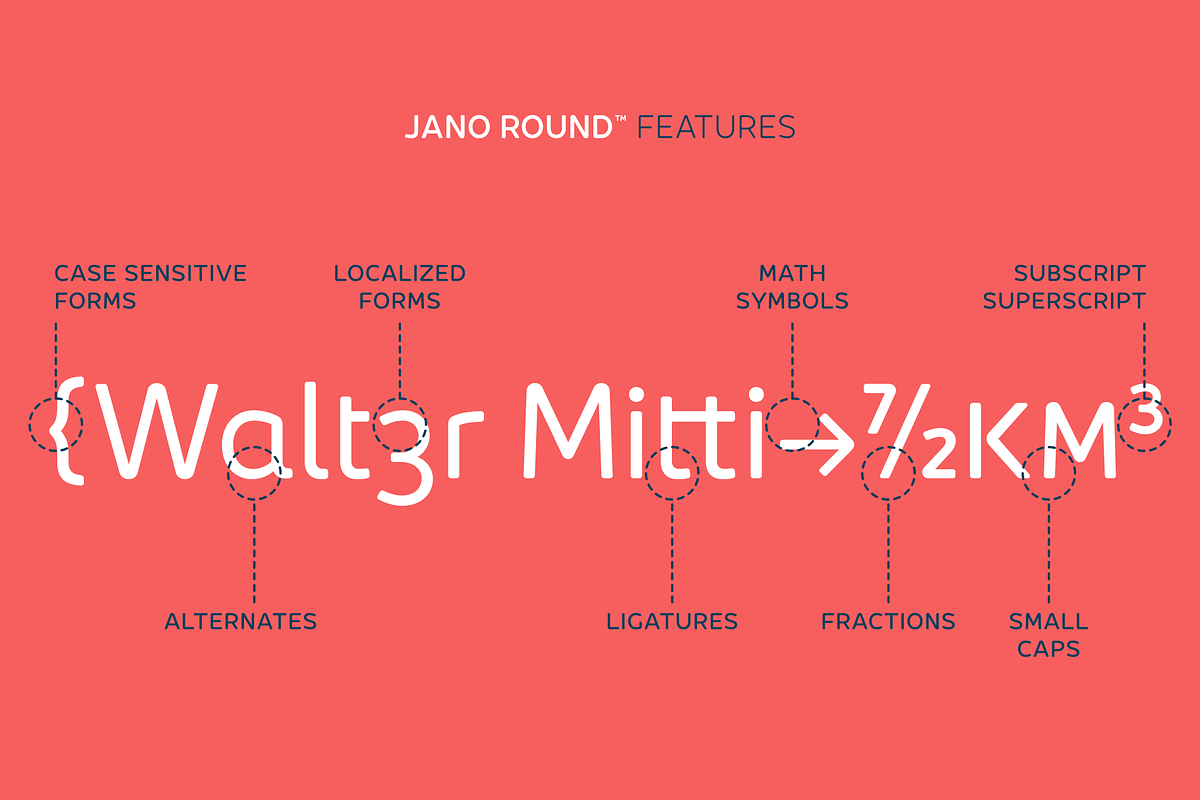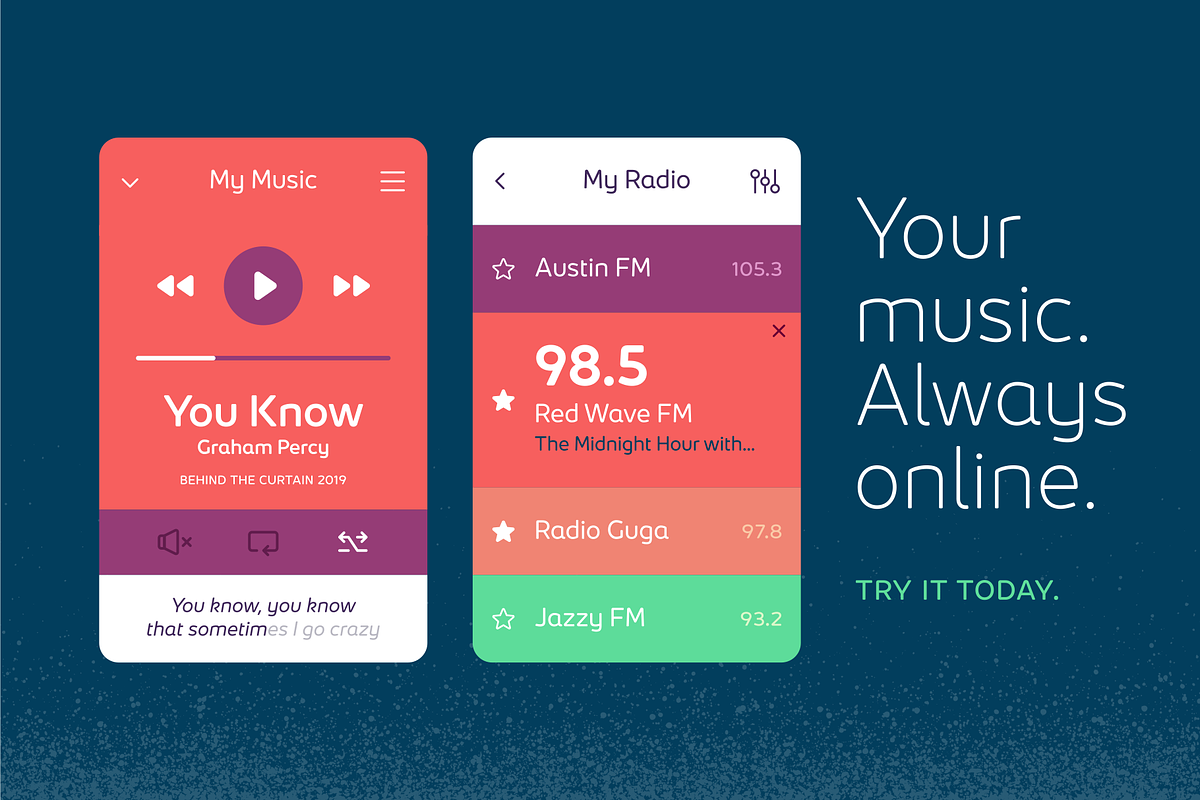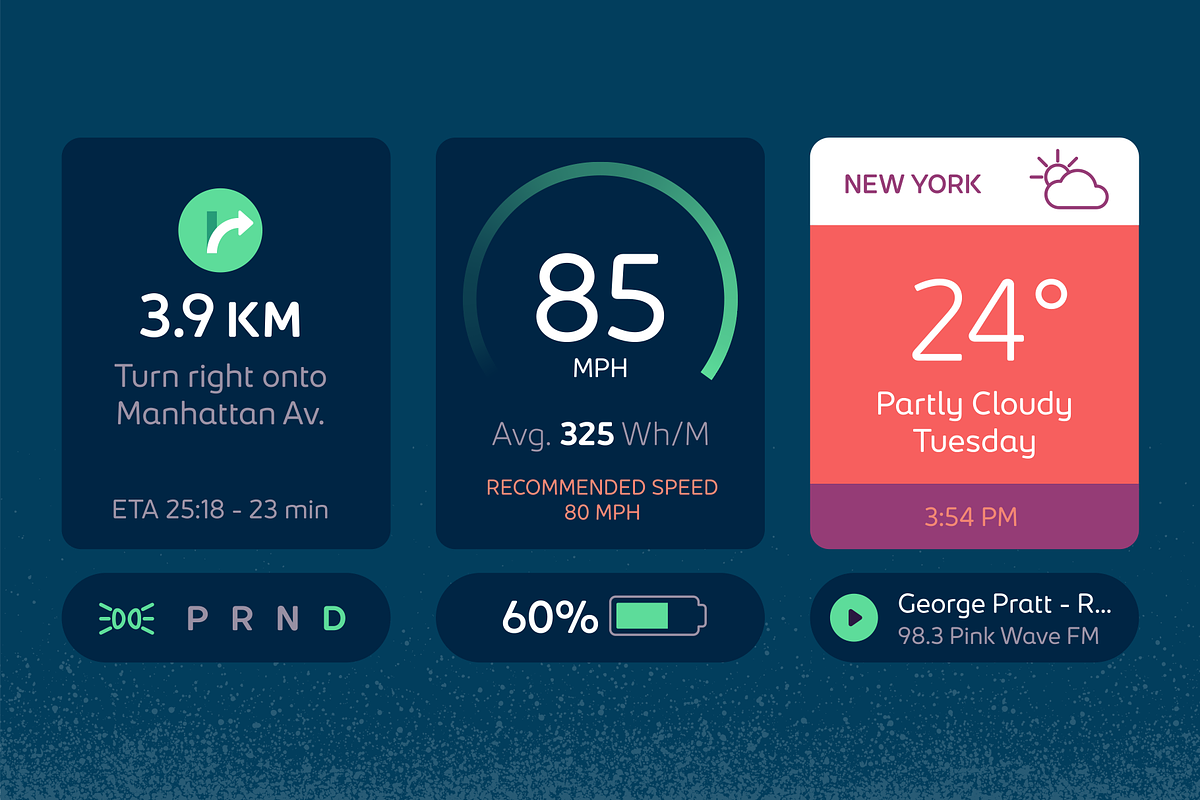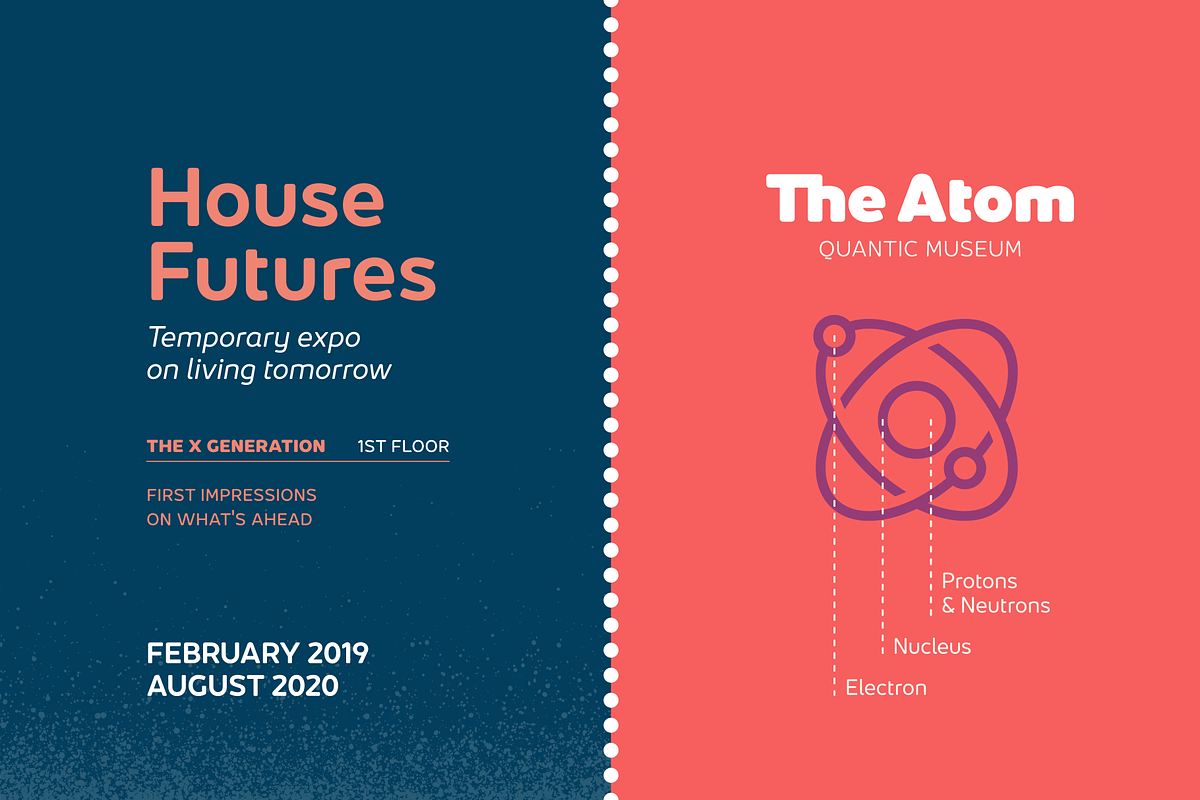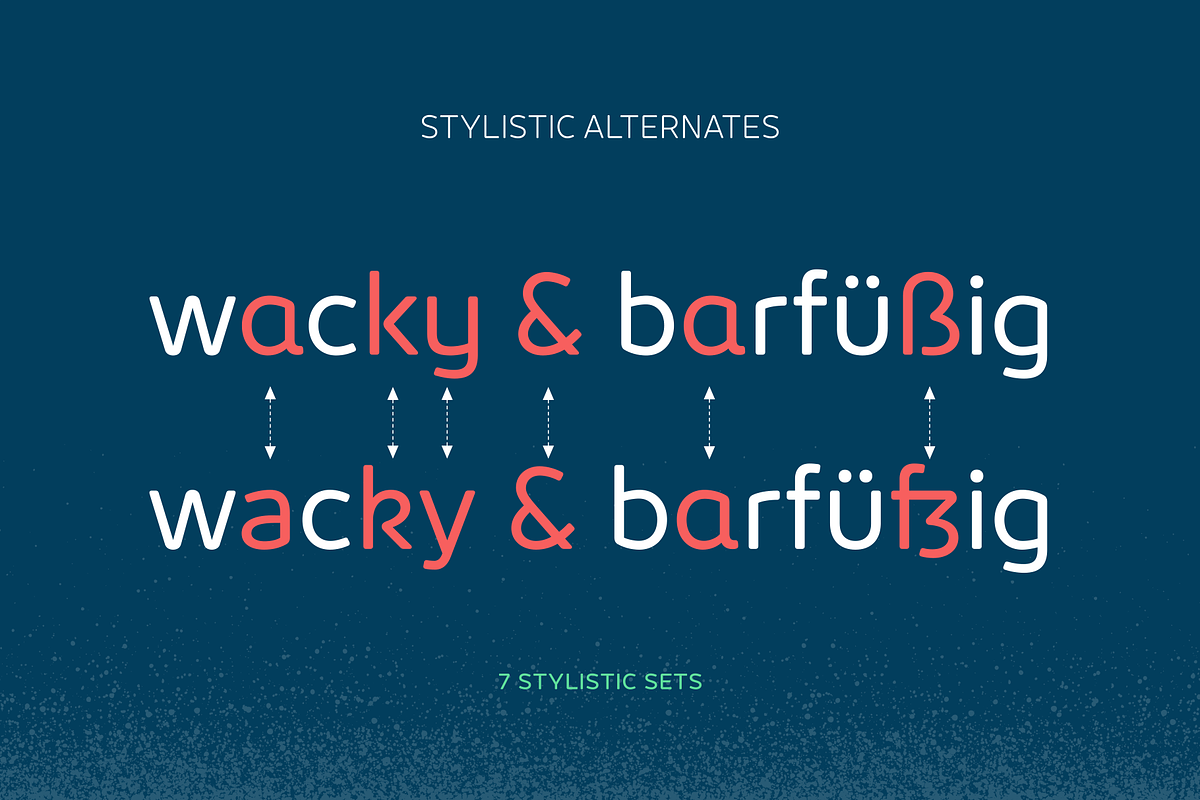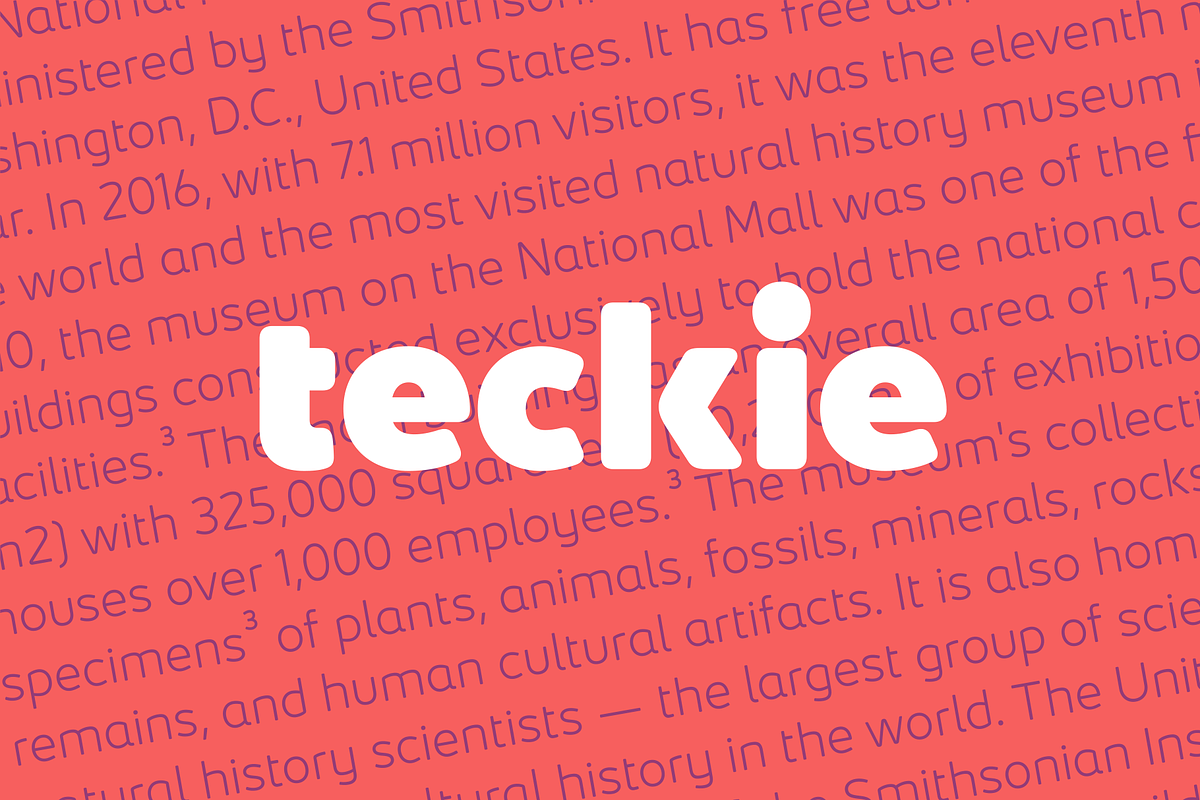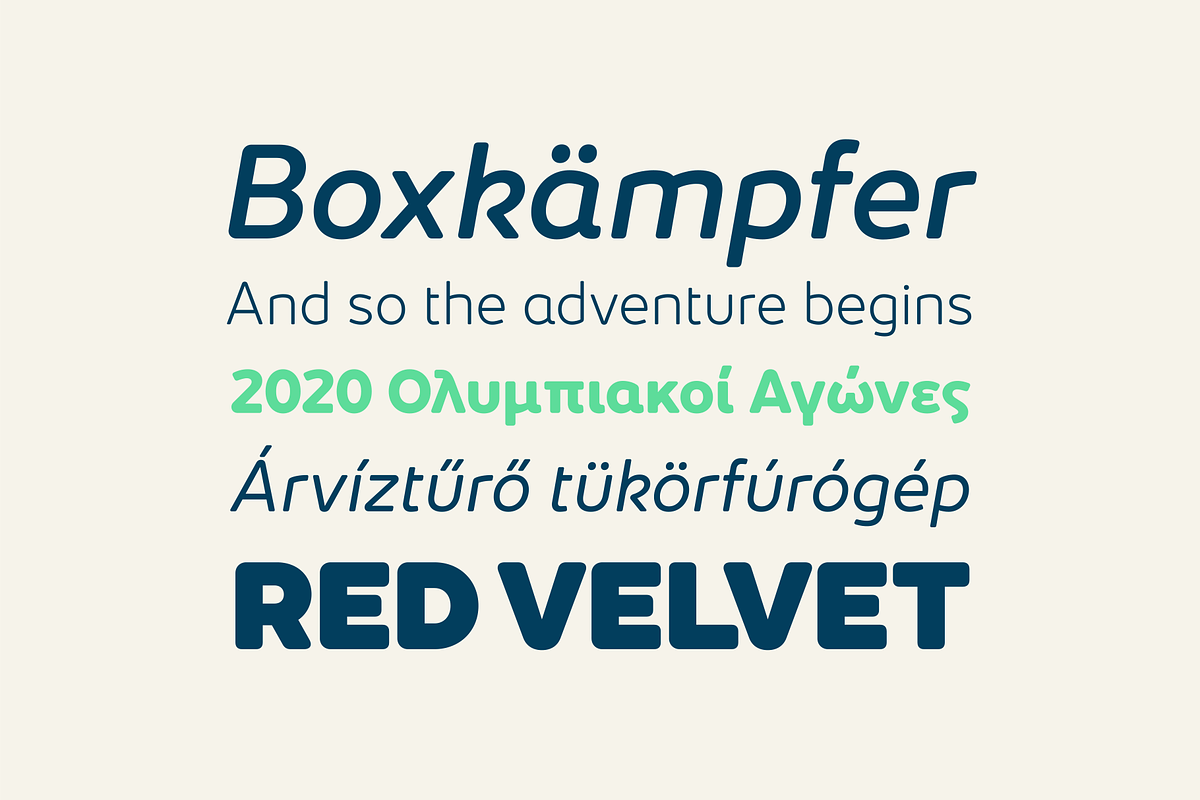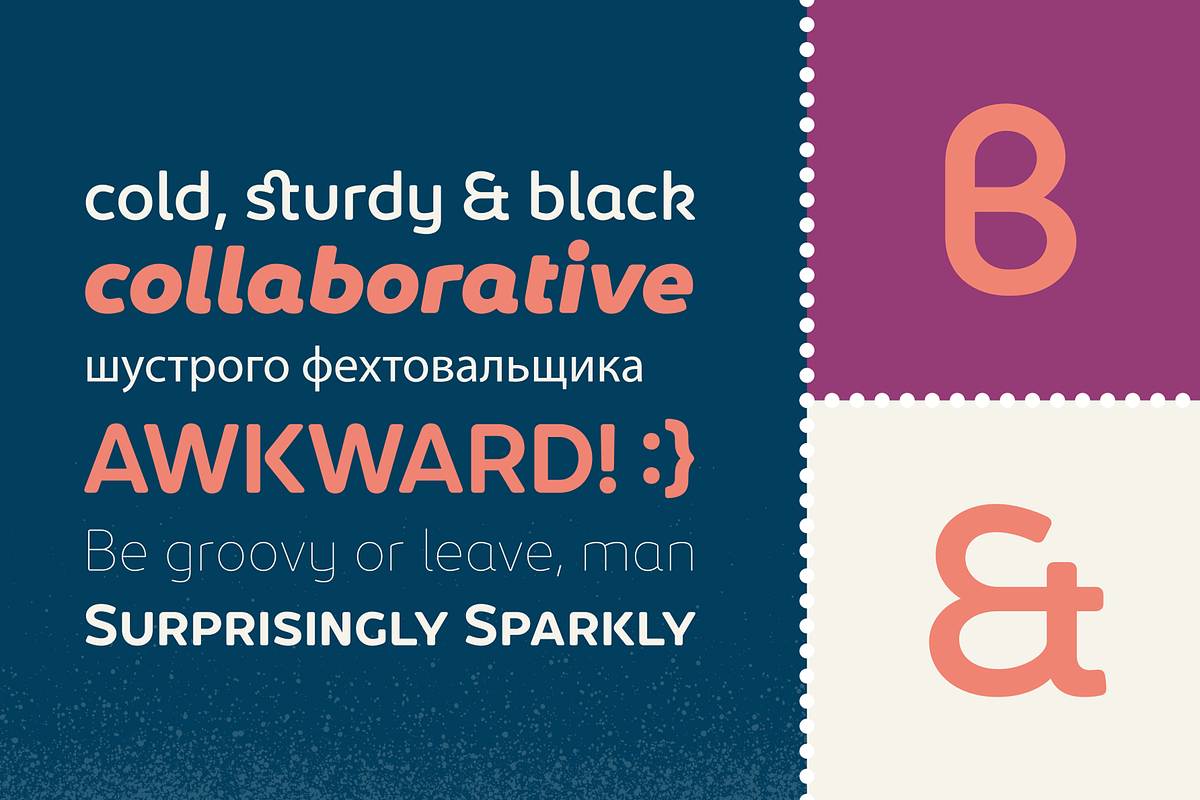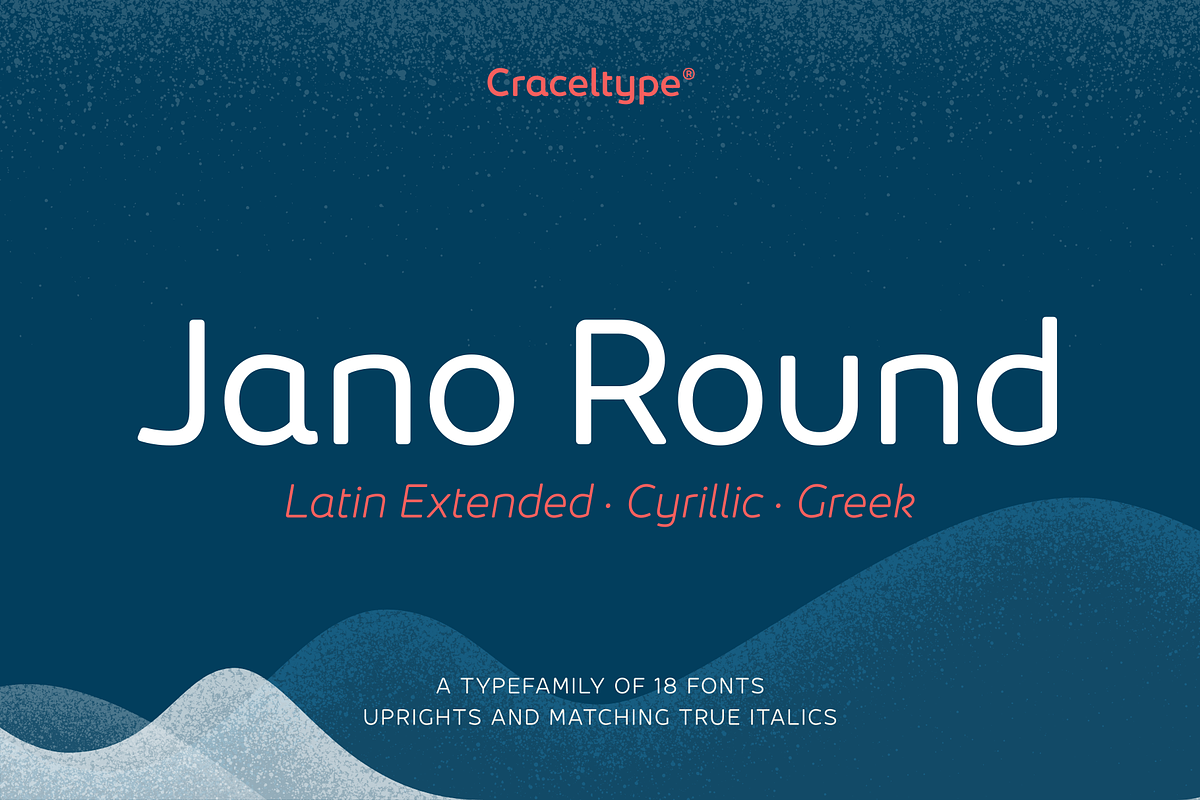
Jano Round
Created right after Jano Sans, Jano Round serves as its gentler counterpart. It was born from a "can we make it more friendly?" moment. The result was a humanist sans with rounded forms and engaging appeal that later proved perfect for branding applications, web, and broadcast. With 18 styles and over 1800 glyphs per style, it ensures legibility across 290+ languages.
Jano Round exudes a friendly, tech-forward vibe and was built to be a versatile workhorse type system, offering great OpenType features like alternative shapes, small caps, ligatures, localized forms, case-sensitive forms, and more. Featuring 18 styles and over 1800 glyphs per style, it guarantees legibility across 290+ languages, even at small sizes.